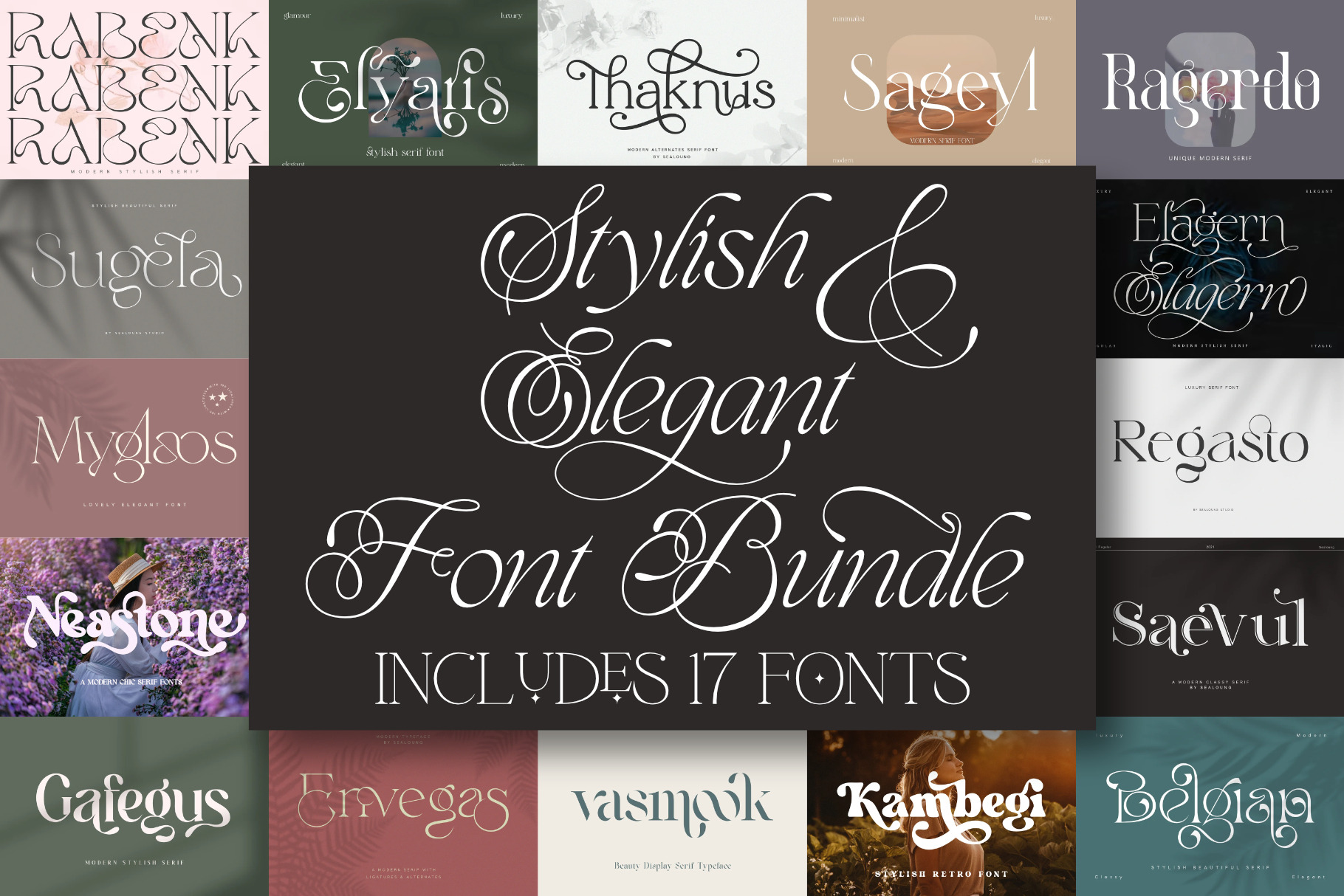
17 Stylish And Elegant Serif Font Bundle.
All the fonts in this bundle are classy and luxurious serifs from us. This typeface has been crafted with care to ensure a premium quality and luxurious feel. The binders make this typeface unique and stand out from regular serif fonts. It is suitable for logos, headlines, titles and various other formal forms such as invitations, labels, logos, magazines, books, greeting / wedding cards, packaging, fashion, makeup, stationery, novels, labels or any type of advertising purposes. You will get unique, classy, elegant, and of course beautiful to make your branding or design projects stand out with this font.
FEATURE:
- Uppercase and lowercase letters
- Multilingual Character